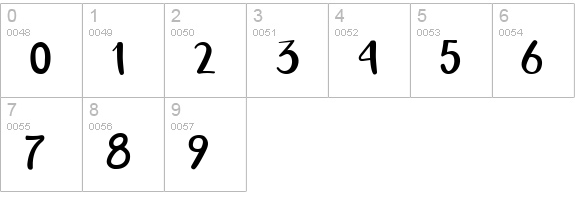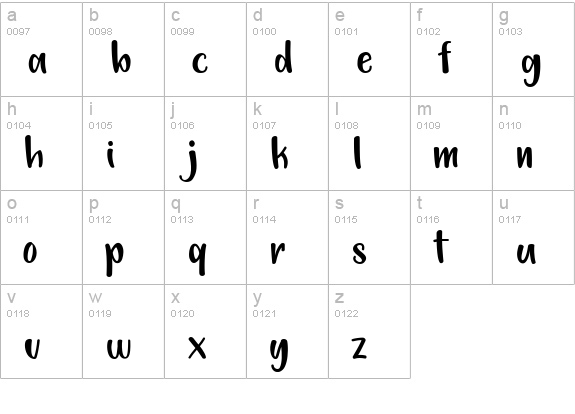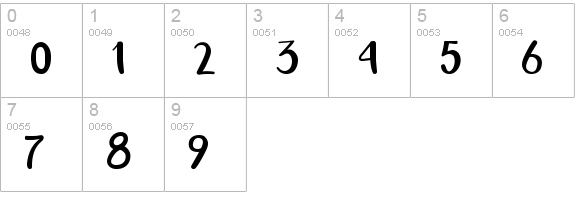
Sweet Jenny's Font Details
Sweet Jenny's is a demo font in the Fancy > Cartoon category, designed by HydricDesign. It has been downloaded 59 times and is available for Windows, Mac and Linux.
Sweet Jenny's font is a charming and playful typeface that exudes a delightful and whimsical vibe. With its soft curves and elegant flourishes, this font is perfect for adding a touch of sweetness to your designs. Whether you're creating invitations, greeting cards, or branding materials, Sweet Jenny's will bring a touch of elegance and charm to your projects.